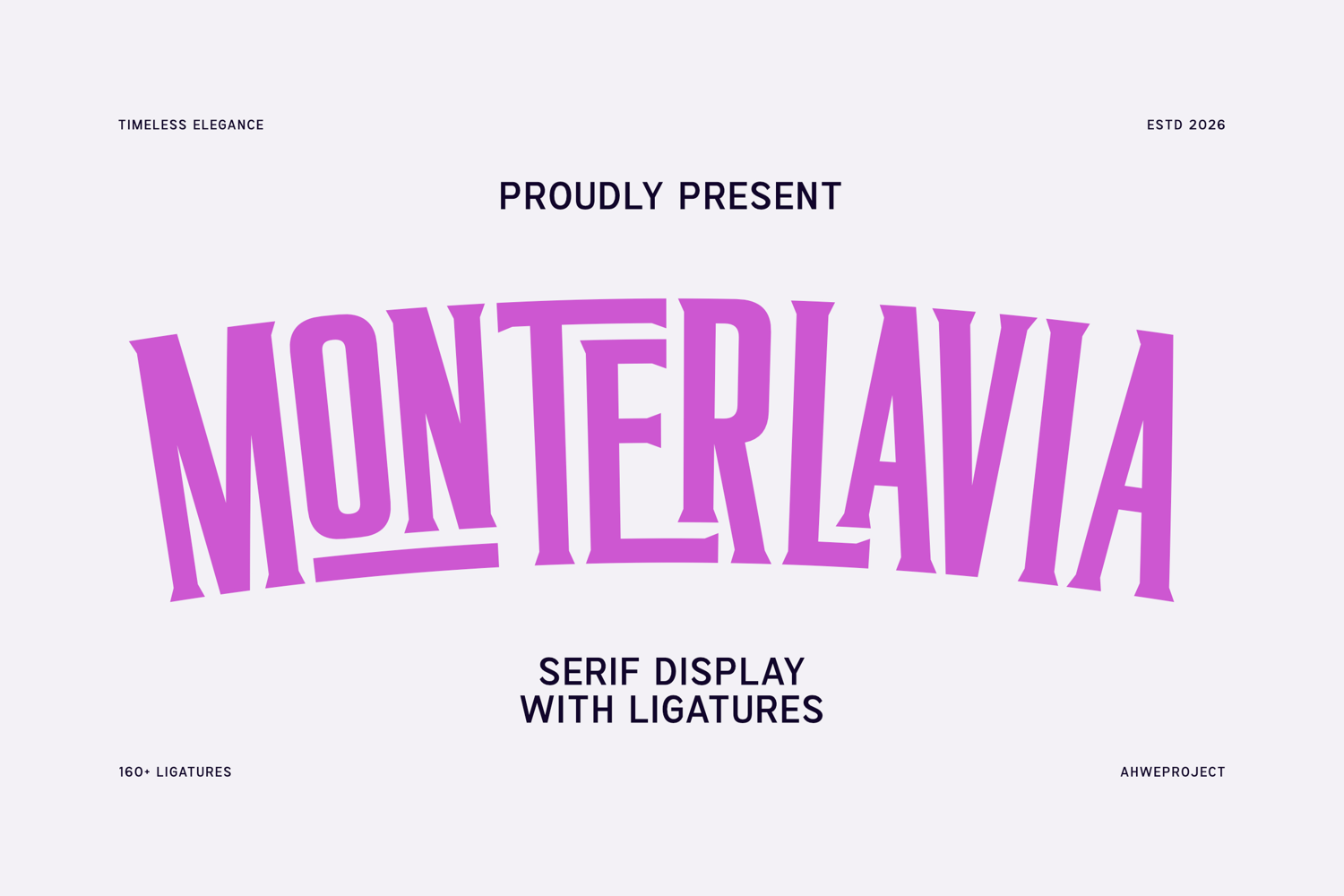
Monterlavia
Monterlavia is a distinctive serif display typeface created to bring elegance, personality, and a sophisticated editorial feel to every design. With its tall proportions, expressive serif details, and graceful letterforms, Monterlavia delivers a strong visual presence while maintaining a refined and timeless character.
What makes Monterlavia especially unique is its collection of 160+ ligatures. These carefully designed letter combinations allow you to create more expressive typography and give words a beautifully customized appearance. Instead of looking like ordinary typed text, headlines and logotypes can feel closer to custom lettering—making each composition more memorable and visually distinctive.
Monterlavia combines classic serif elegance with a modern display personality. Its dramatic shapes work beautifully at larger sizes, making it especially suitable for designs where typography needs to become the main visual element. From a sophisticated fashion logo to an eye-catching magazine cover, Monterlavia can instantly add character and elevate the overall look of your project.
The variety of ligatures also gives you more freedom when experimenting with wordmarks and compositions. Different letter combinations can create different rhythms and silhouettes, helping designers discover a look that feels unique to each brand or project.
Why You’ll Love Monterlavia:
- 160+ ligatures for more creative and distinctive typography
- Elegant serif forms with a strong display personality
- Creates a sophisticated custom-lettering feel
- Ideal for memorable logos and wordmarks
- Strong visual impact for headlines and large typography
- Combines classic elegance with contemporary styling
- Perfect for fashion, beauty, editorial, and luxury-inspired projects
- Helps ordinary words become expressive visual elements
- Versatile enough for both refined minimalist layouts and bold statement designs
- Designed for creators who want typography with more personality than a conventional serif font
Monterlavia is an excellent choice for logos, branding, fashion projects, editorial layouts, magazine covers, packaging, posters, headlines, titles, beauty brands, wedding designs, invitations, social media graphics, product labels, and other premium visual identities.